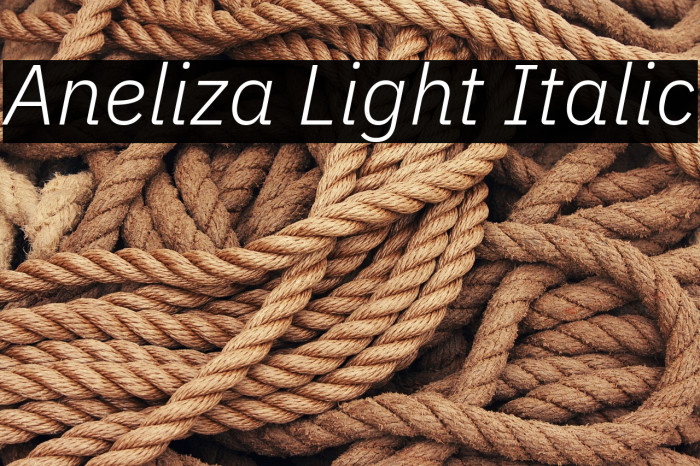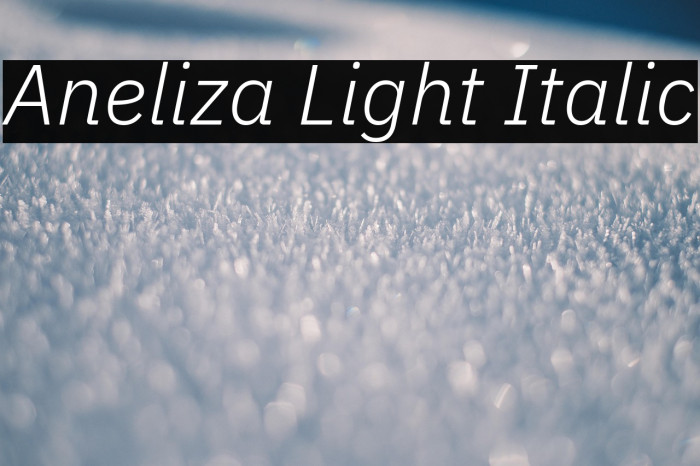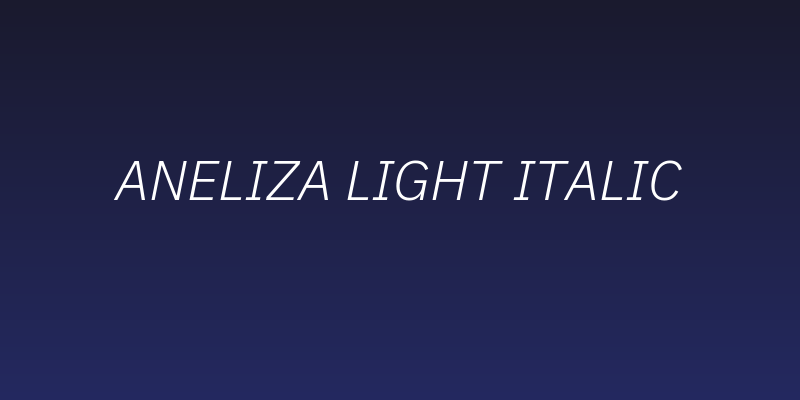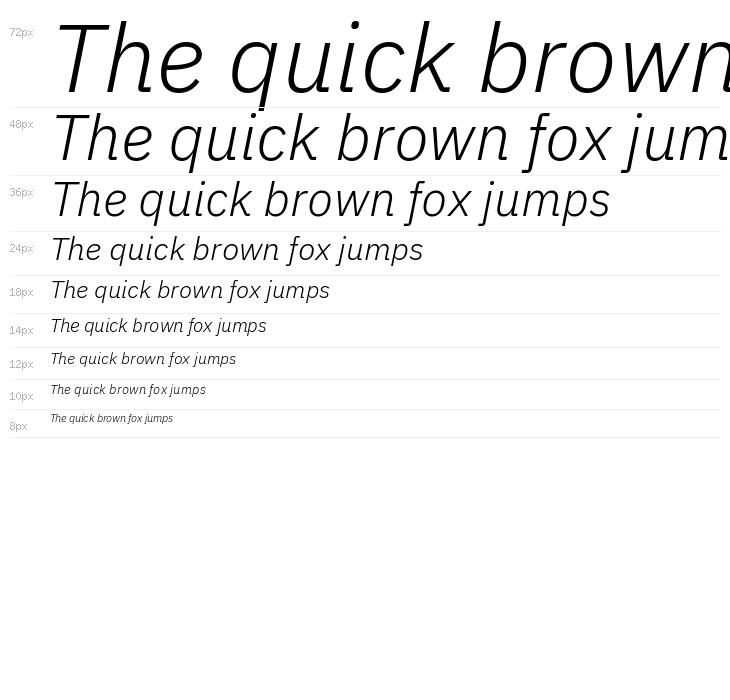
Aneliza Light Italic Font
Aneliza Light Italic Description
This font features a sleek and elegant design with a light weight and italic style. The characters are slightly slanted, giving a sense of motion and fluidity. The strokes are consistent and smooth, with a modern sans-serif appearance. The uppercase and lowercase letters are well-proportioned, maintaining readability and sophistication. The numerals and special characters are designed to match the overall aesthetic, ensuring uniformity across all text. This font is ideal for projects that require a clean and contemporary look.
| Proposed Projects | Ideal for branding, editorial design, websites, and modern advertising campaigns. |